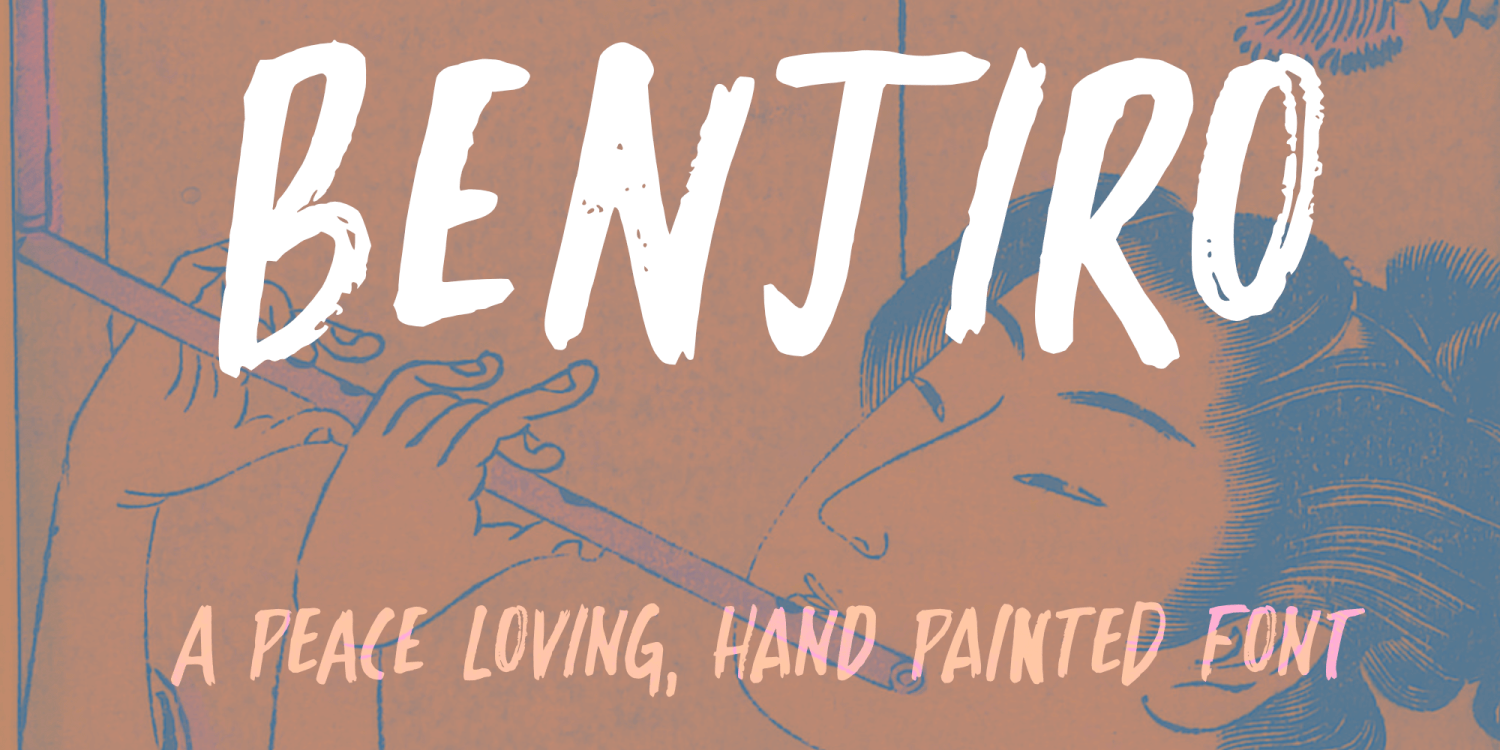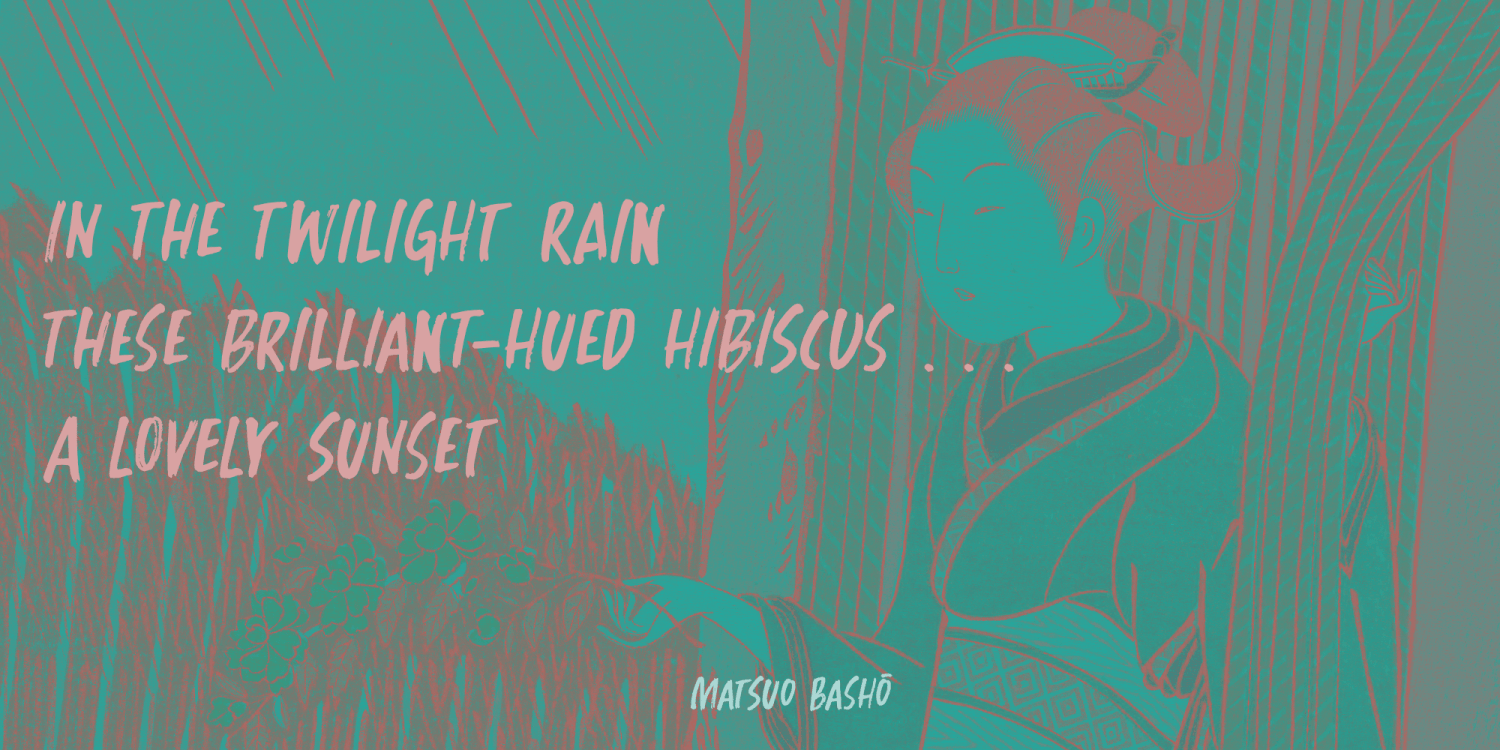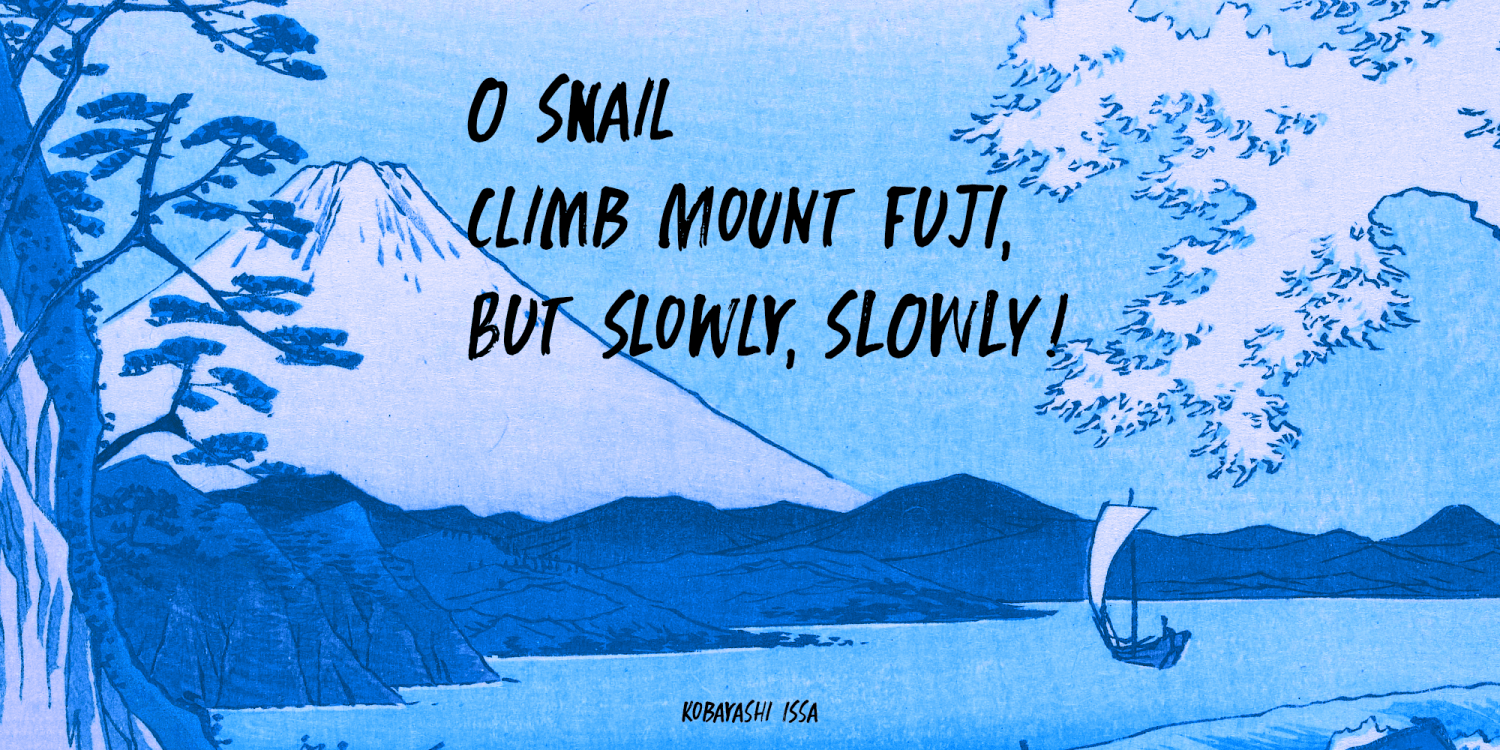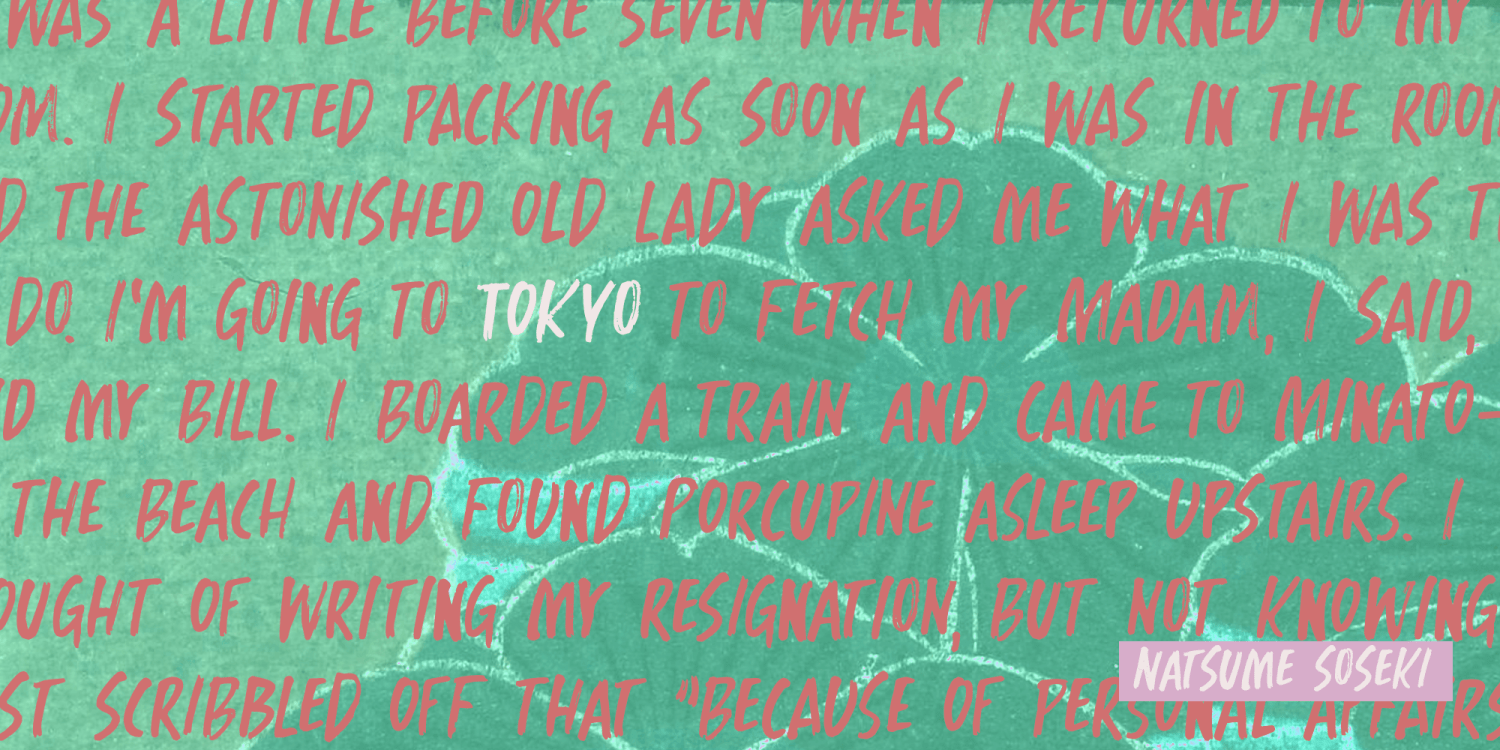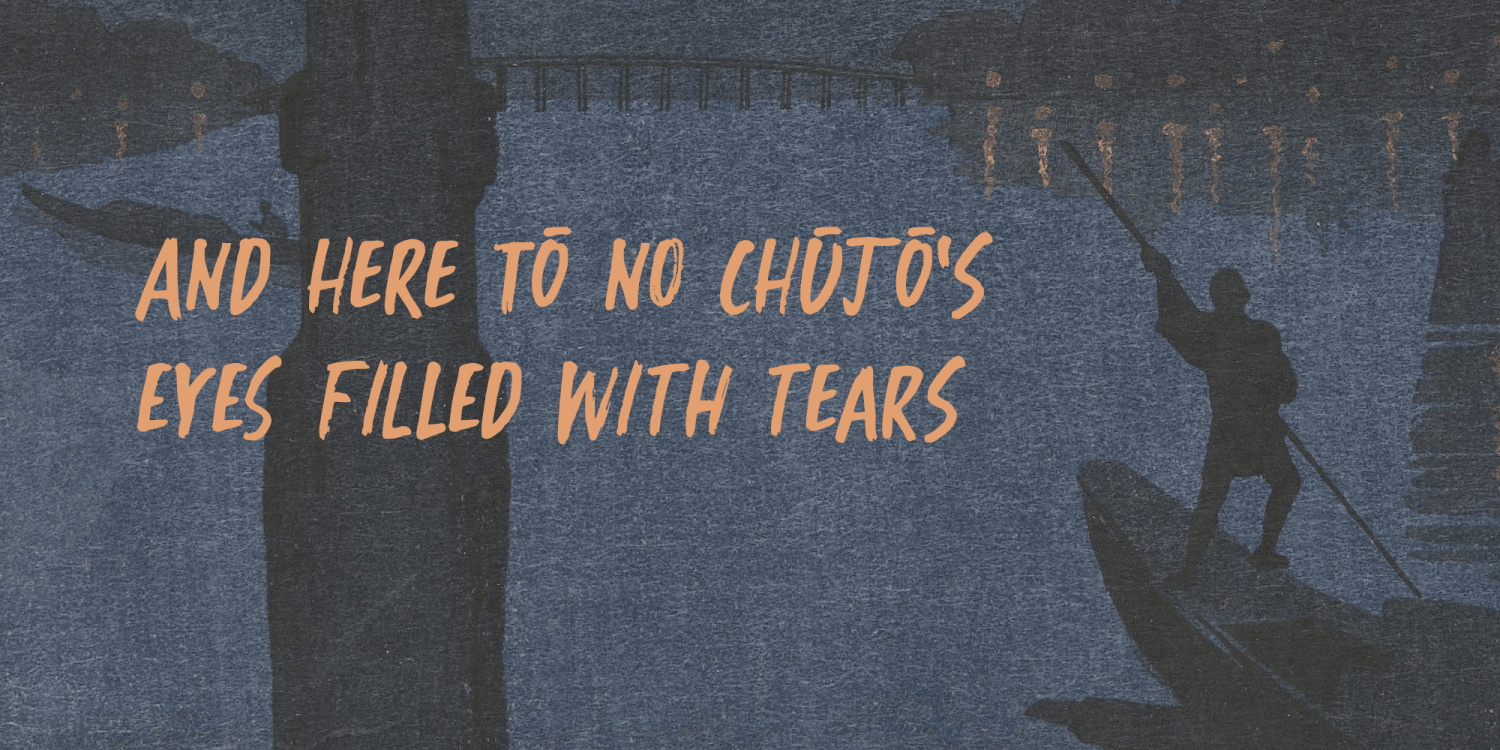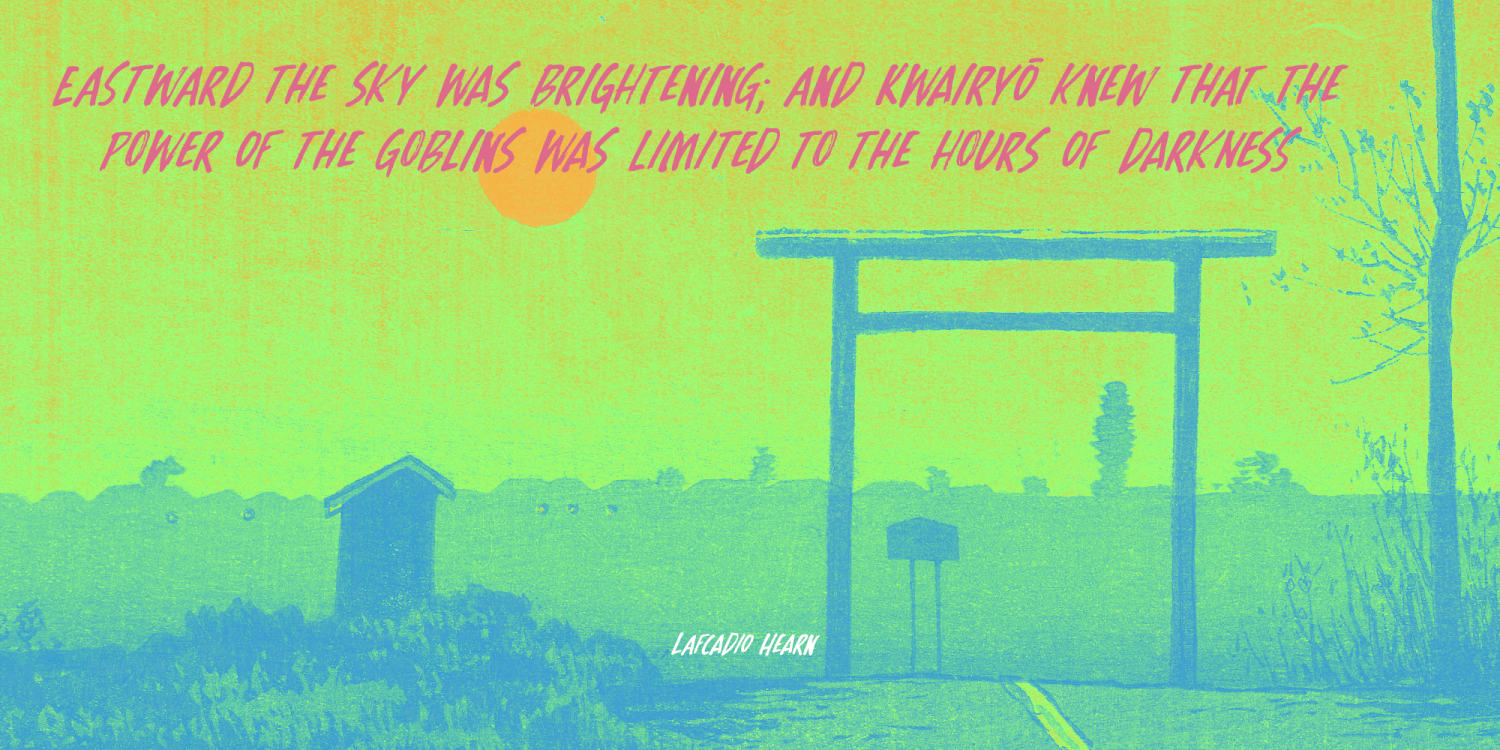
Benjiro
Benjiro is a Japanese name for boys. It means ‘peaceful’ or ‘enjoy peace’, which is something we all really need right now. I settled on a Japanese name, as this font was made with ink and a broken bamboo satay skewer. A few years ago, I made my first font with a broken satay skewer and called it Buntaro, which is also a Japanese boys name, so I thought I’d stick to that tradition.
Benjiro is a rough, all caps brush font. I used really cheap supermarket skewers, because they break in all the wrong places, making it a joy to work with, as you never know what you’ll end up with!
Benjiro comes with extensive language support and a nice set of alternates for the lower case glyphs.